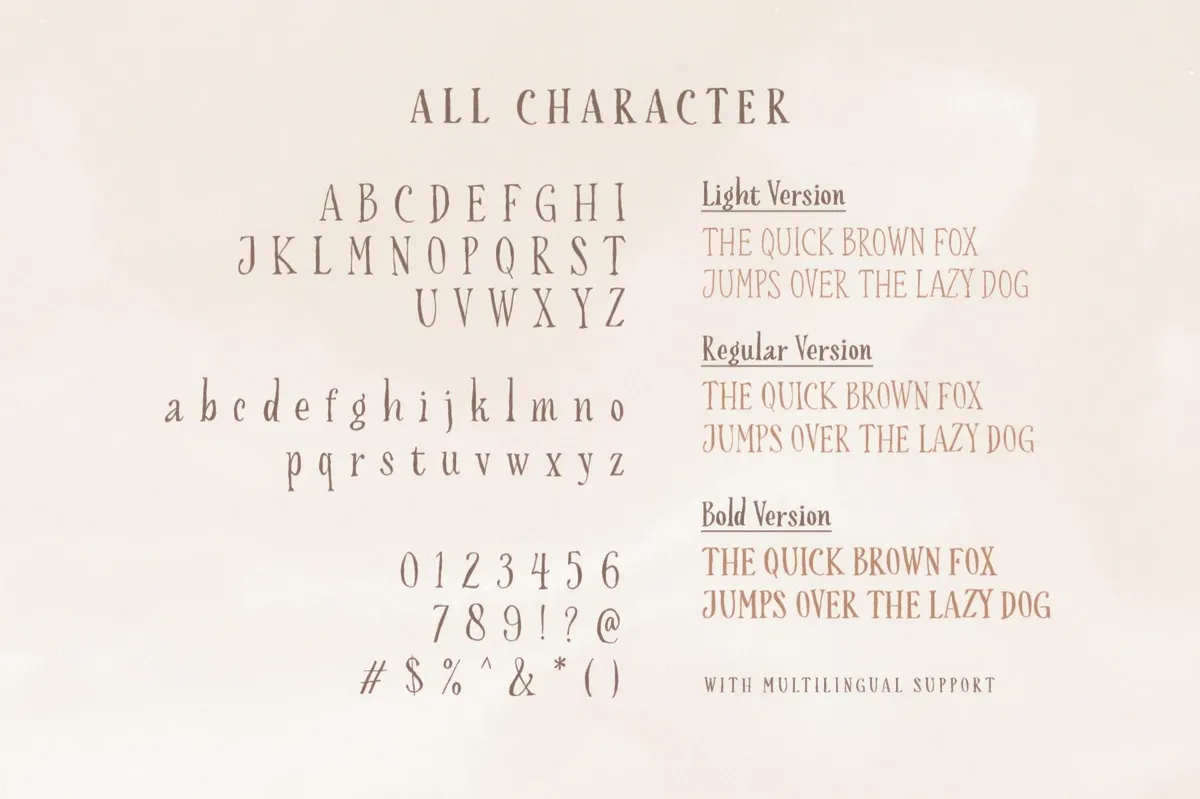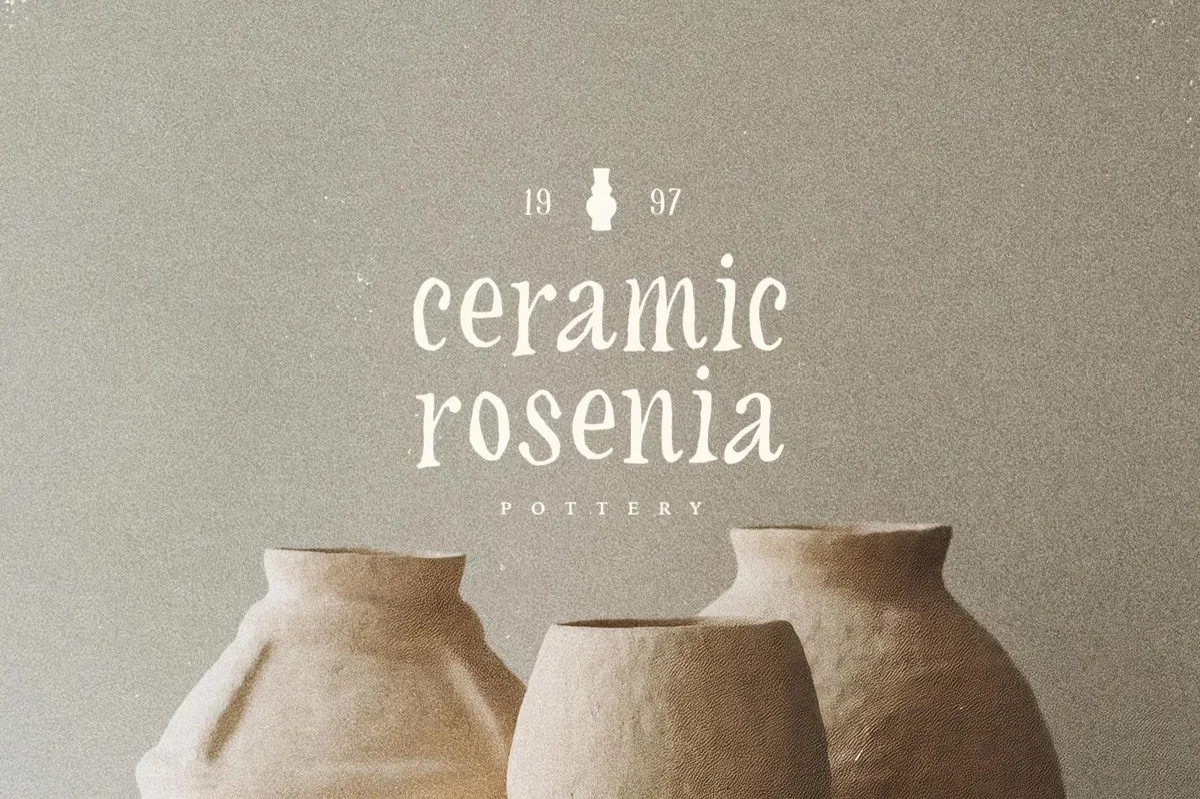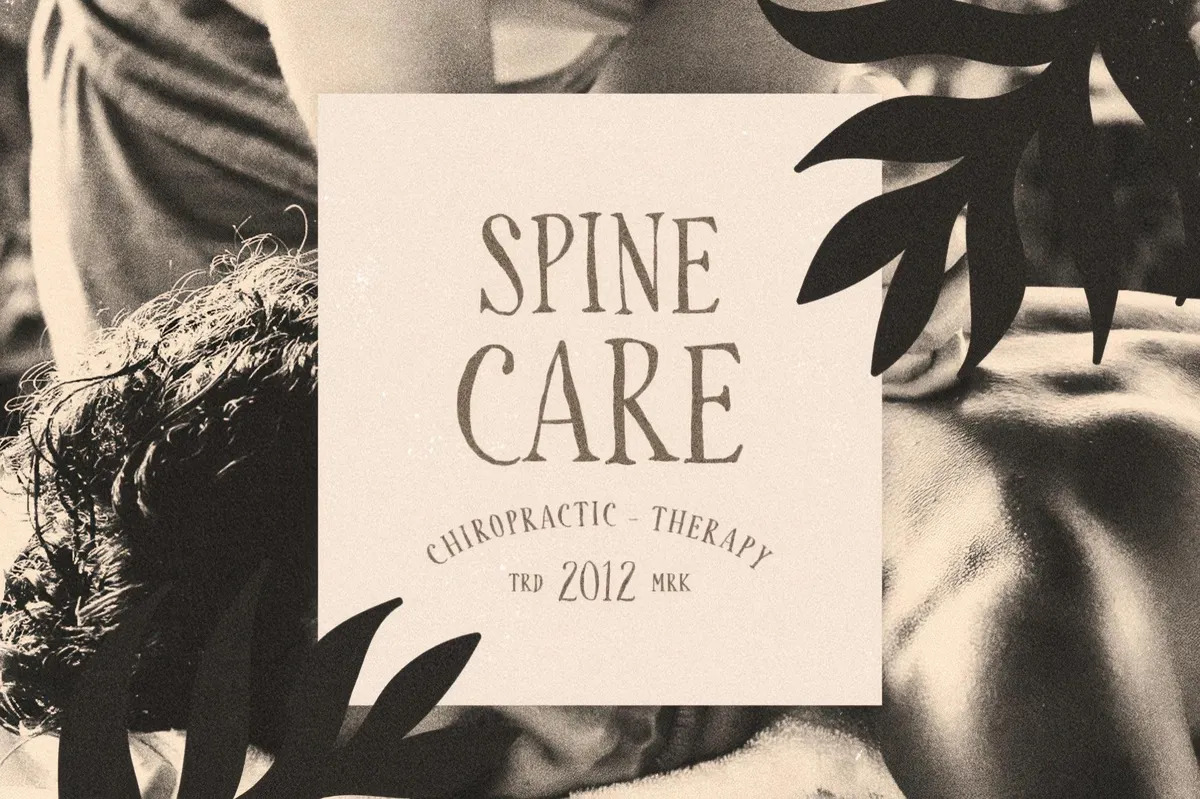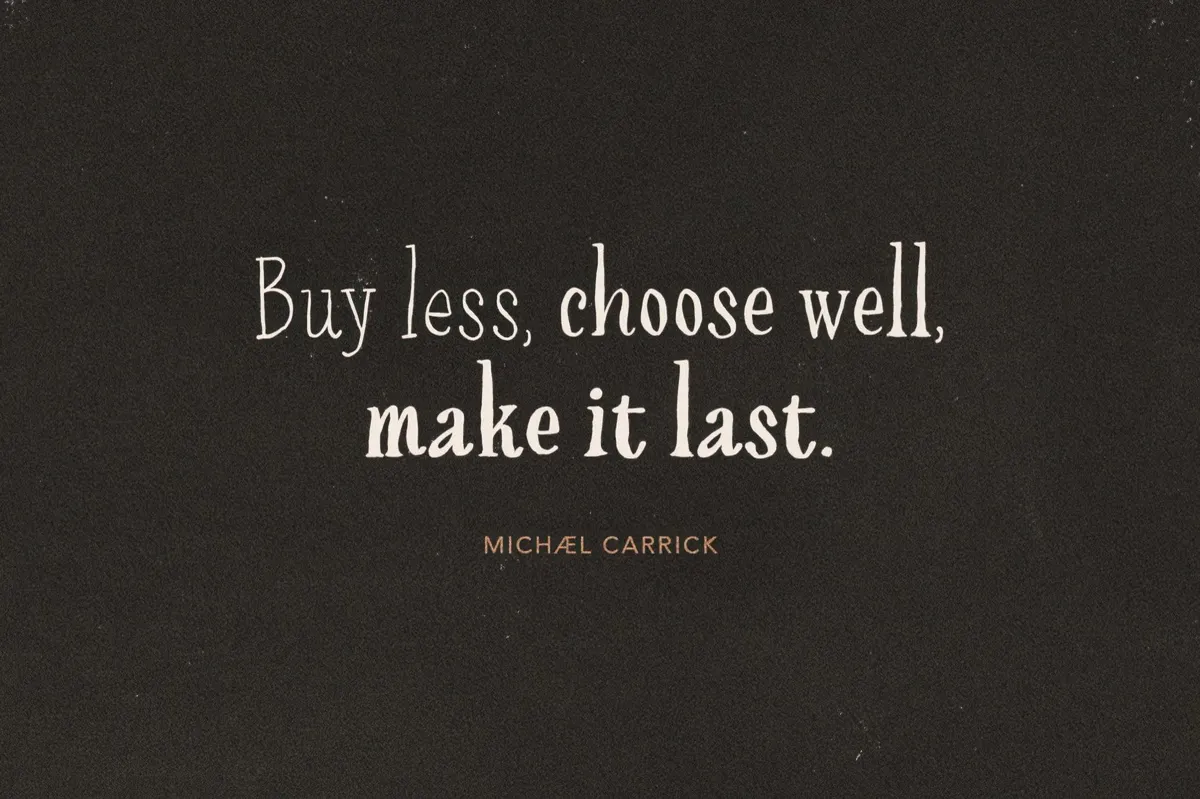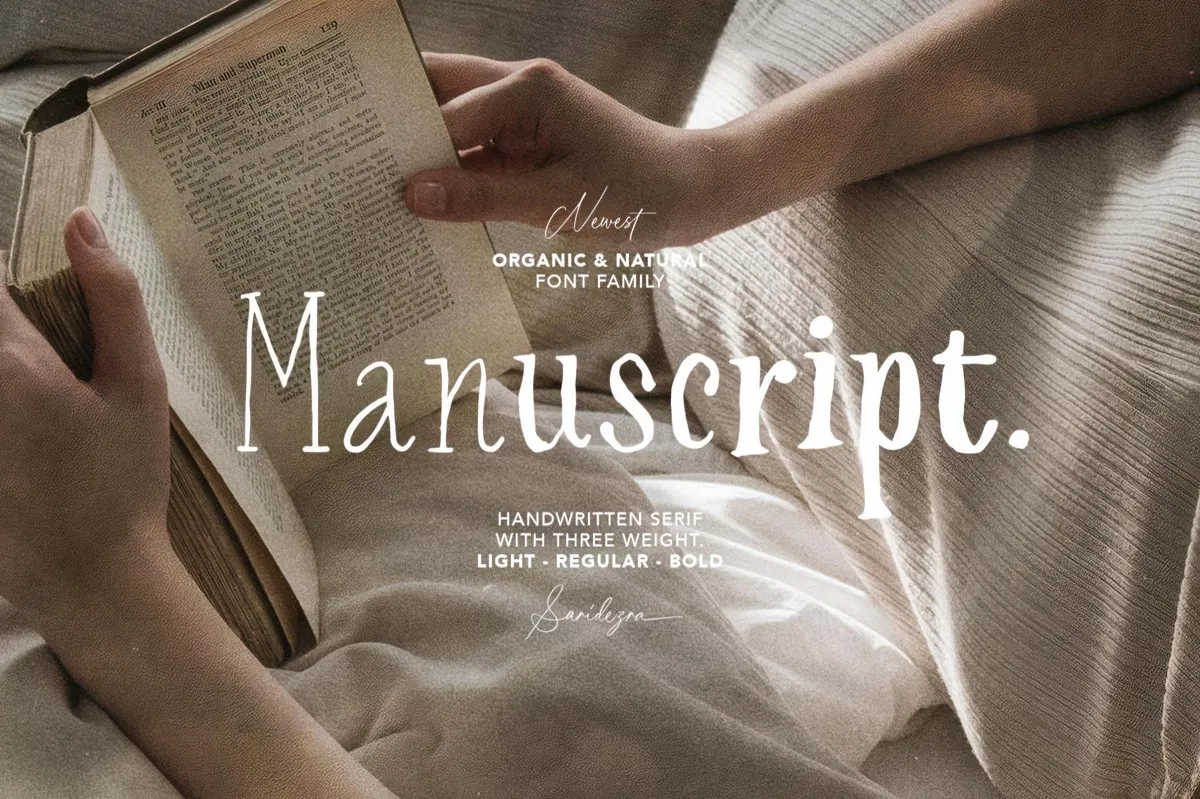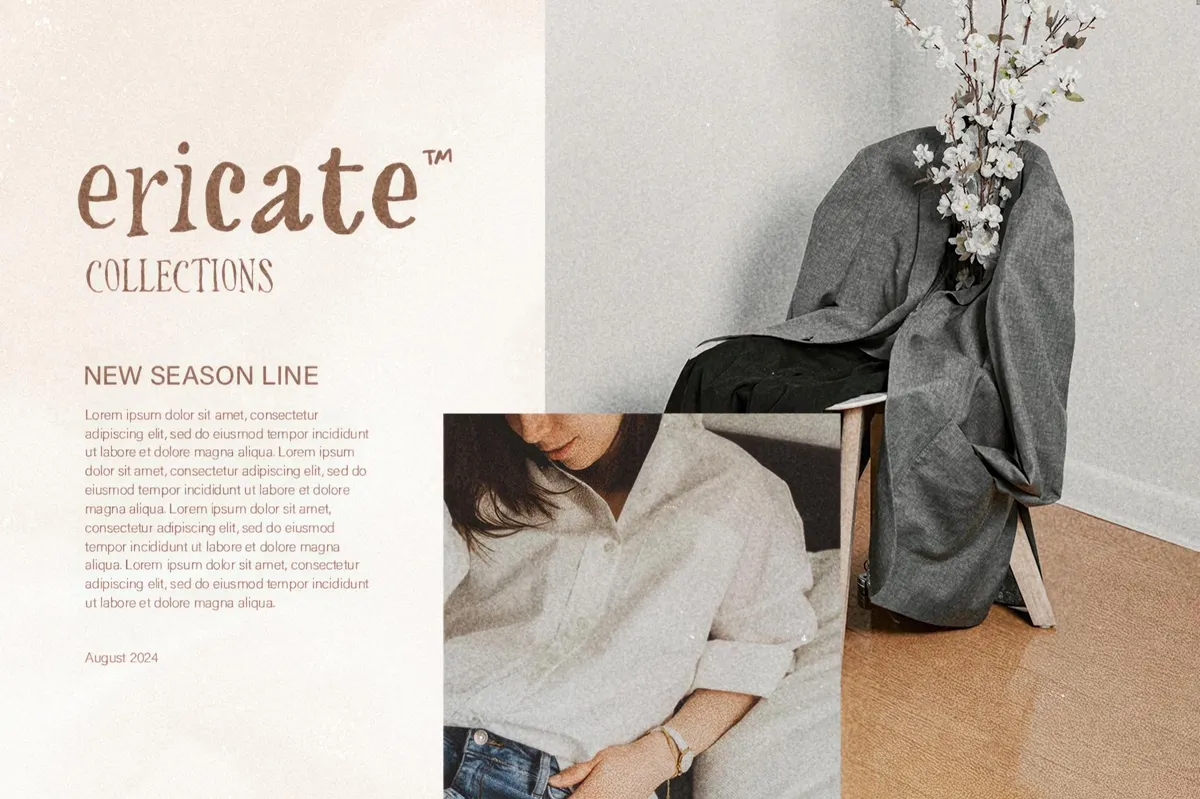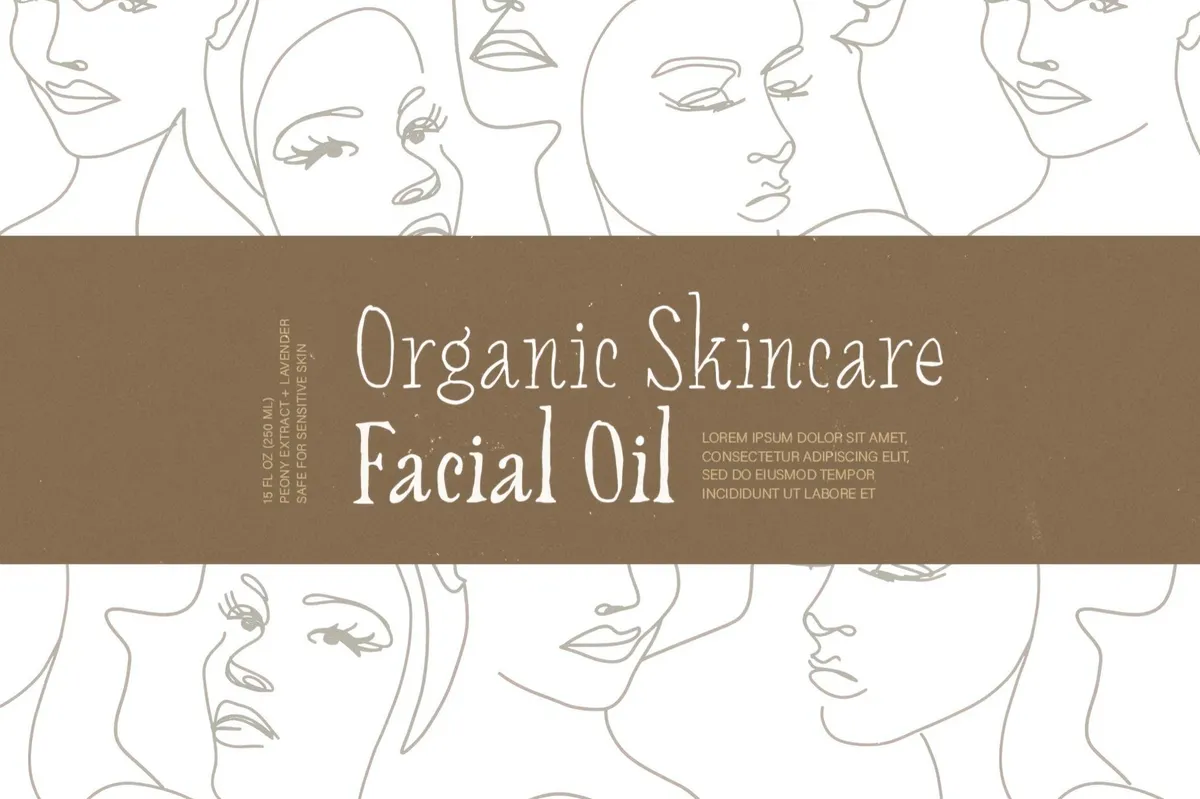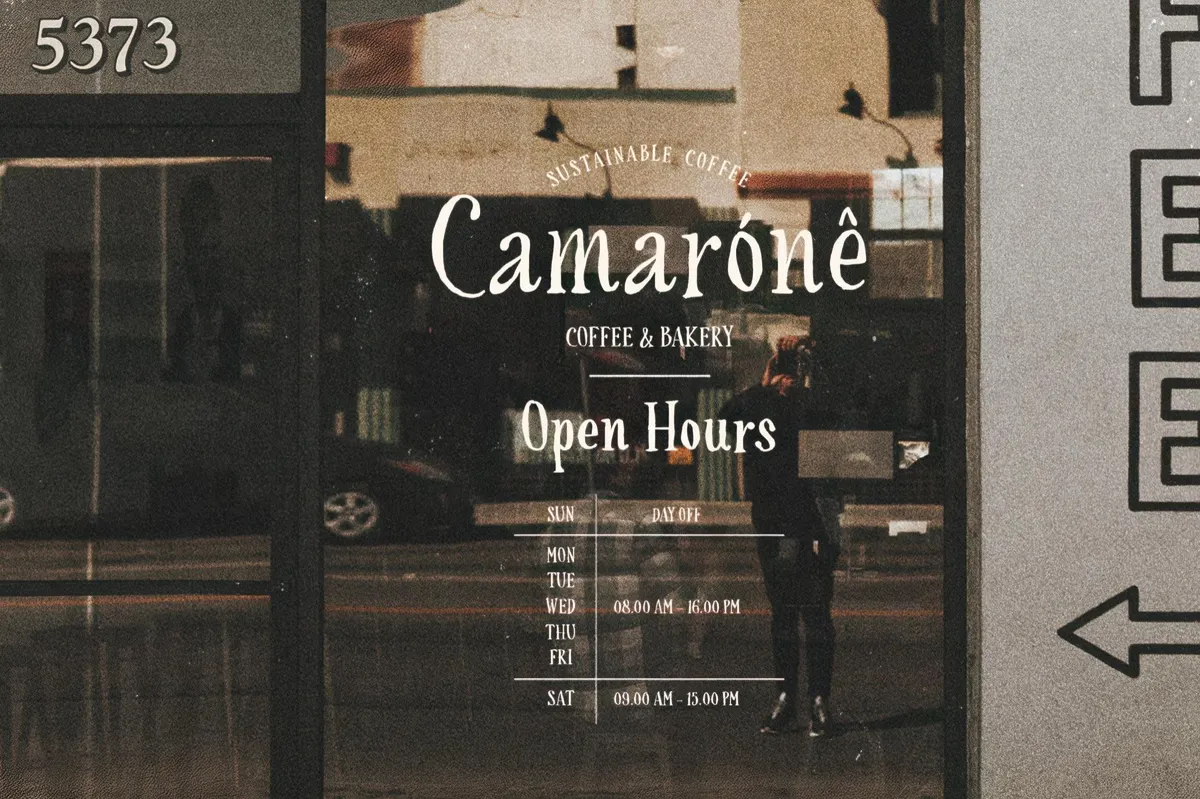
Manuscript — Hand-Lettered Serif
This font feels like a breath of the ages, blending the refinement of ancient manuscripts with the charm of handwriting. Manuscript's soft curves and delicate serifs evoke a sense of warmth, while the elegant, slightly unrestrained strokes resemble hand-penned letters, each carrying a fragment of the author's soul. Subtle yet expressive, it is perfect for book covers, quotes, handwritten journals, and design projects with a vintage aesthetic.
Beyond its visual appeal, Manuscript also offers practical versatility. It comes in three weights: Light, Regular, and Bold. Each weight supports both uppercase and lowercase letters and includes numerals, punctuation, and multilingual characters.